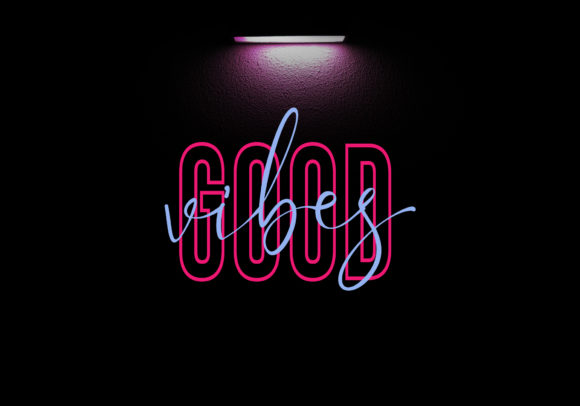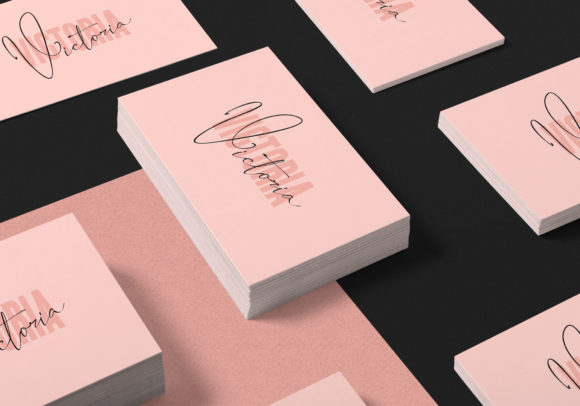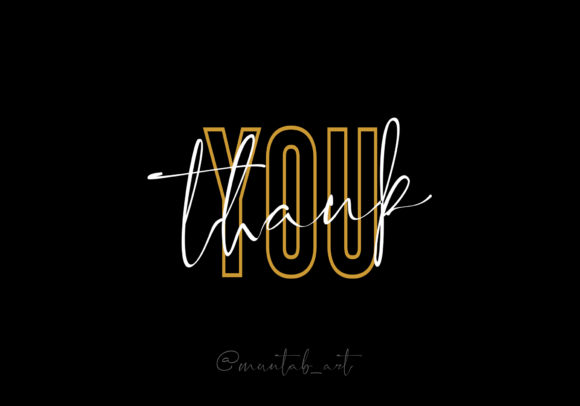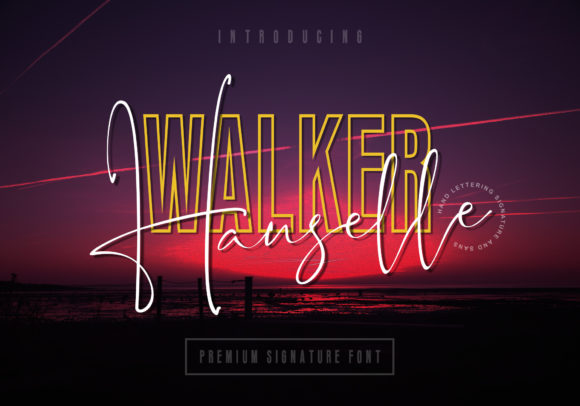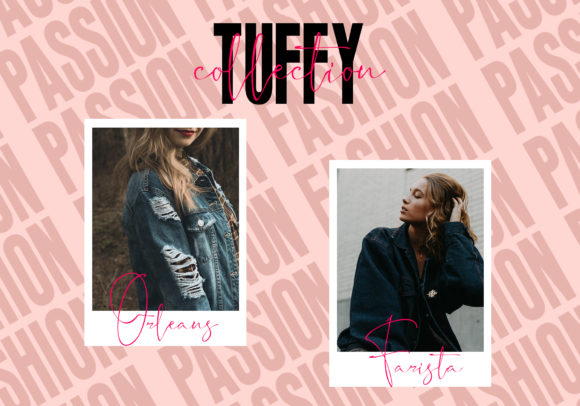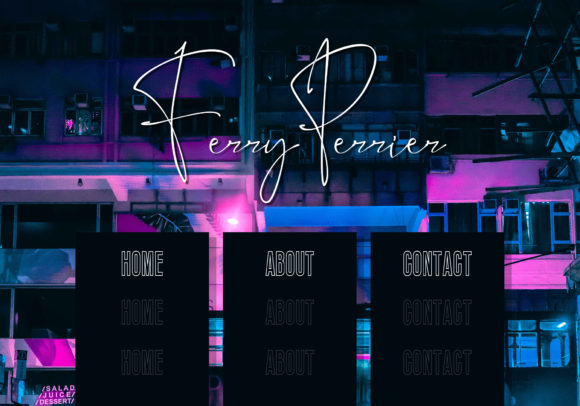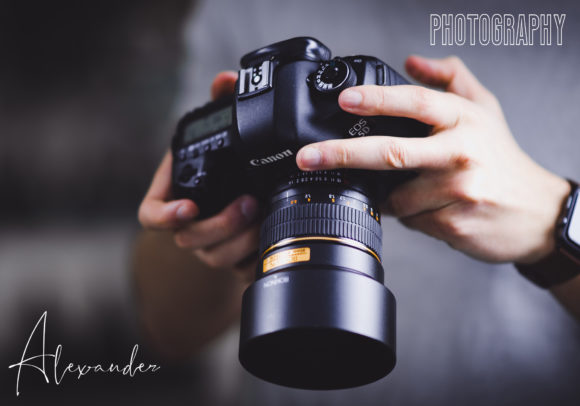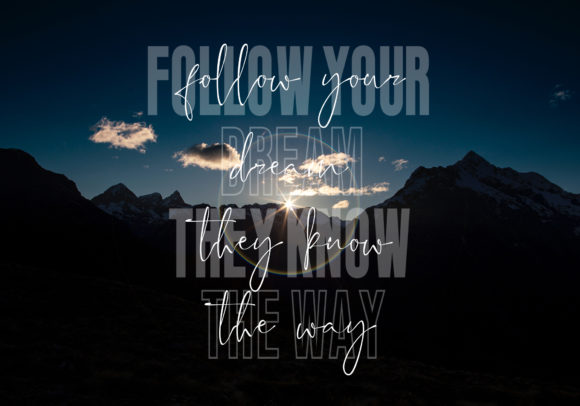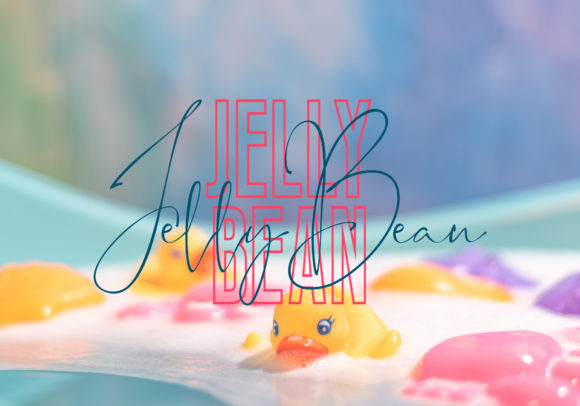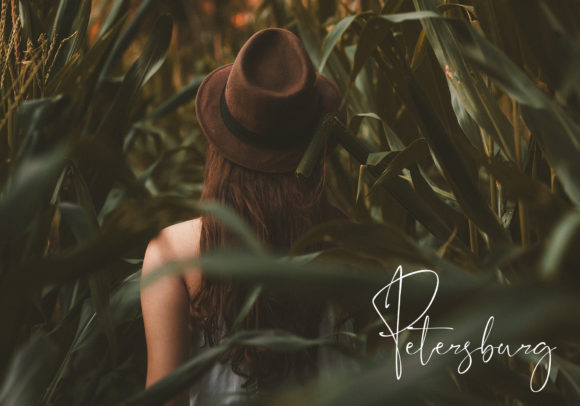
Good Vibes Font
About Good Vibes Font
Good Vibes is a one-of-a-kind font trio with a beautiful and elegant feel. When combined, these three fonts will turn any design project into a stand out!